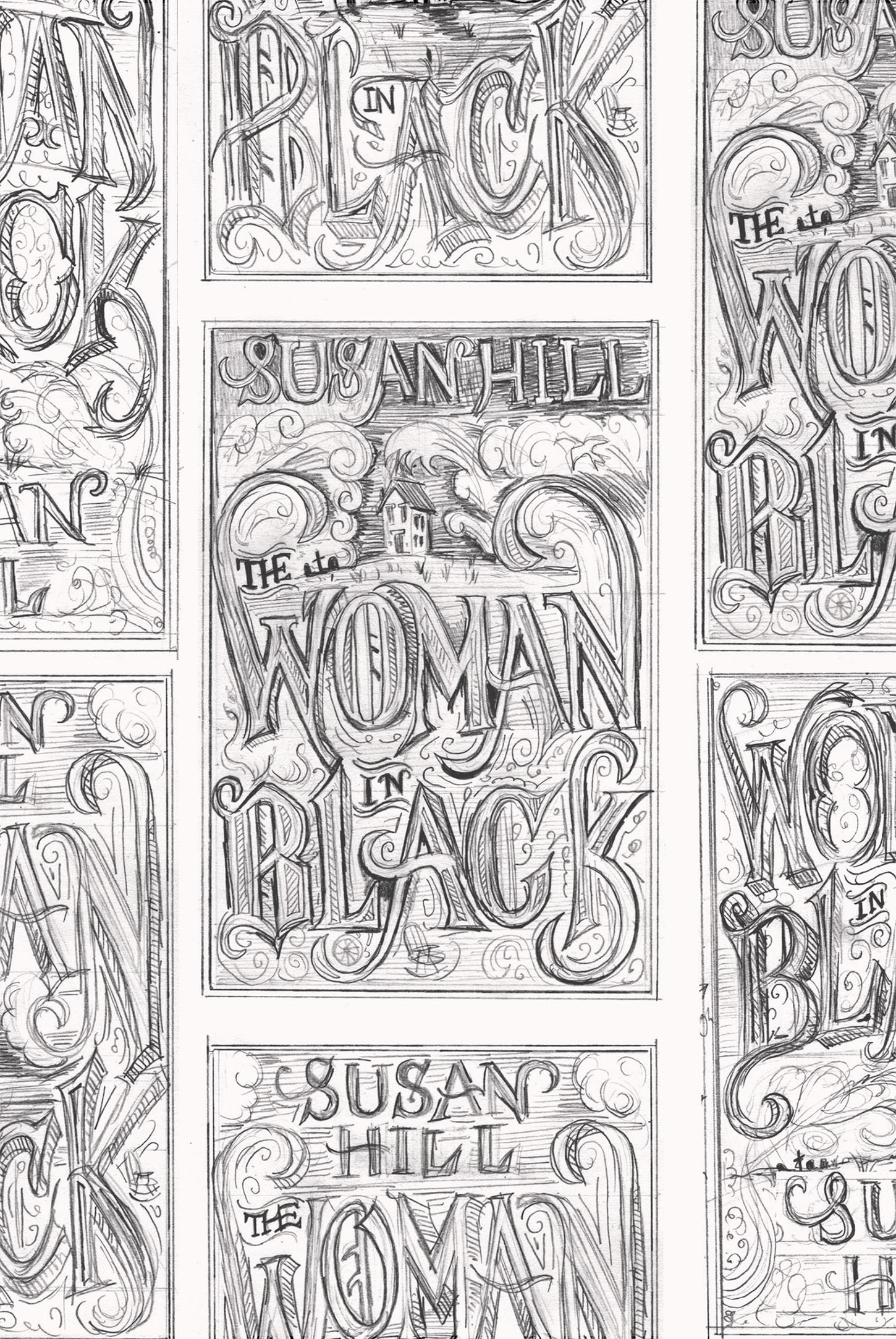
The Woman in Black
A hauntingly beautiful cover that captures the spirit of Susan Hill’s gothic horror classic.
Overview
Commissioned by Penguin Random House, I designed the cover for Susan Hill’s gothic horror novel The Woman in Black. One of my best-known book covers, it captures the eerie atmosphere of the story with a Victorian-era aesthetic that evokes the novel's haunting themes.
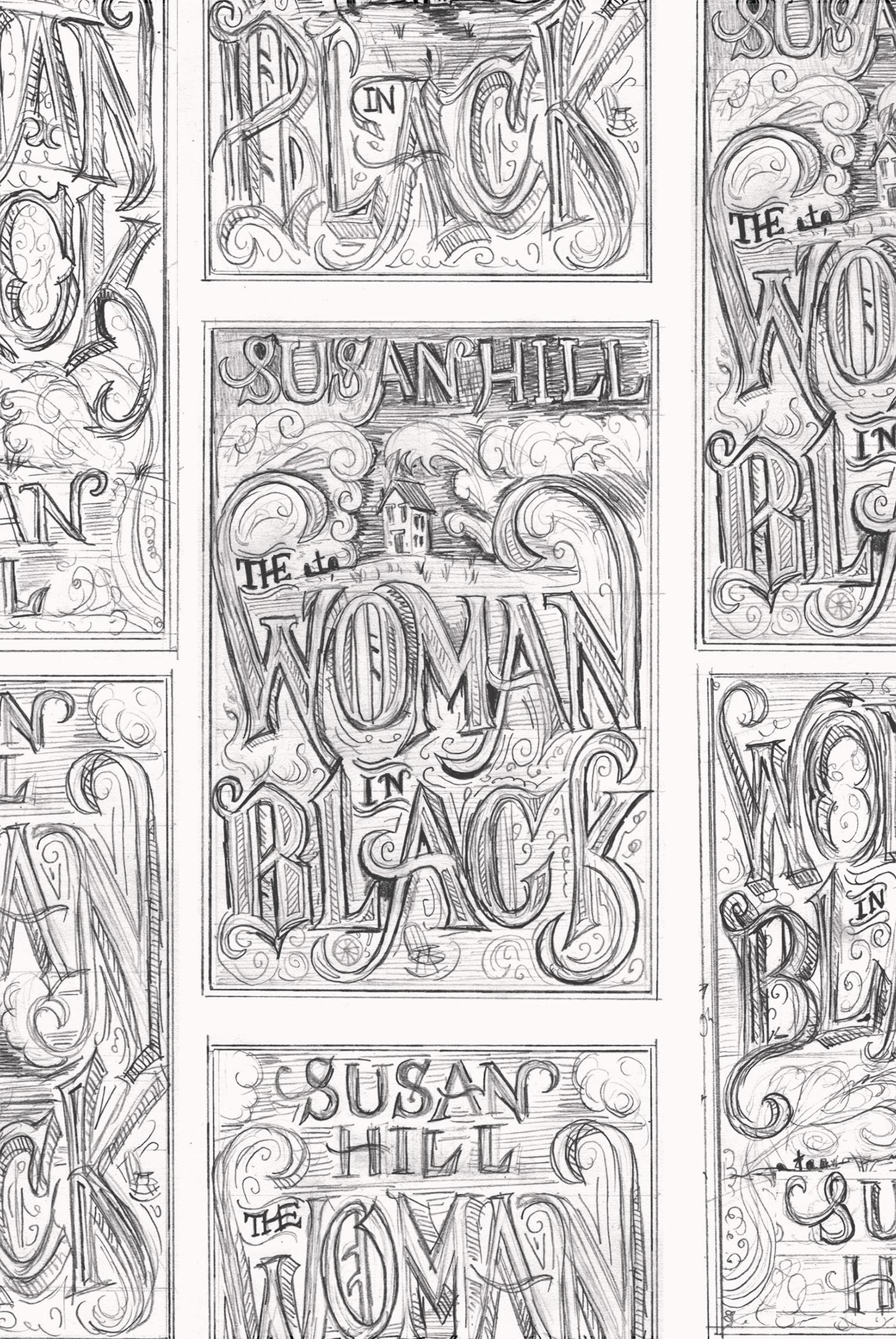
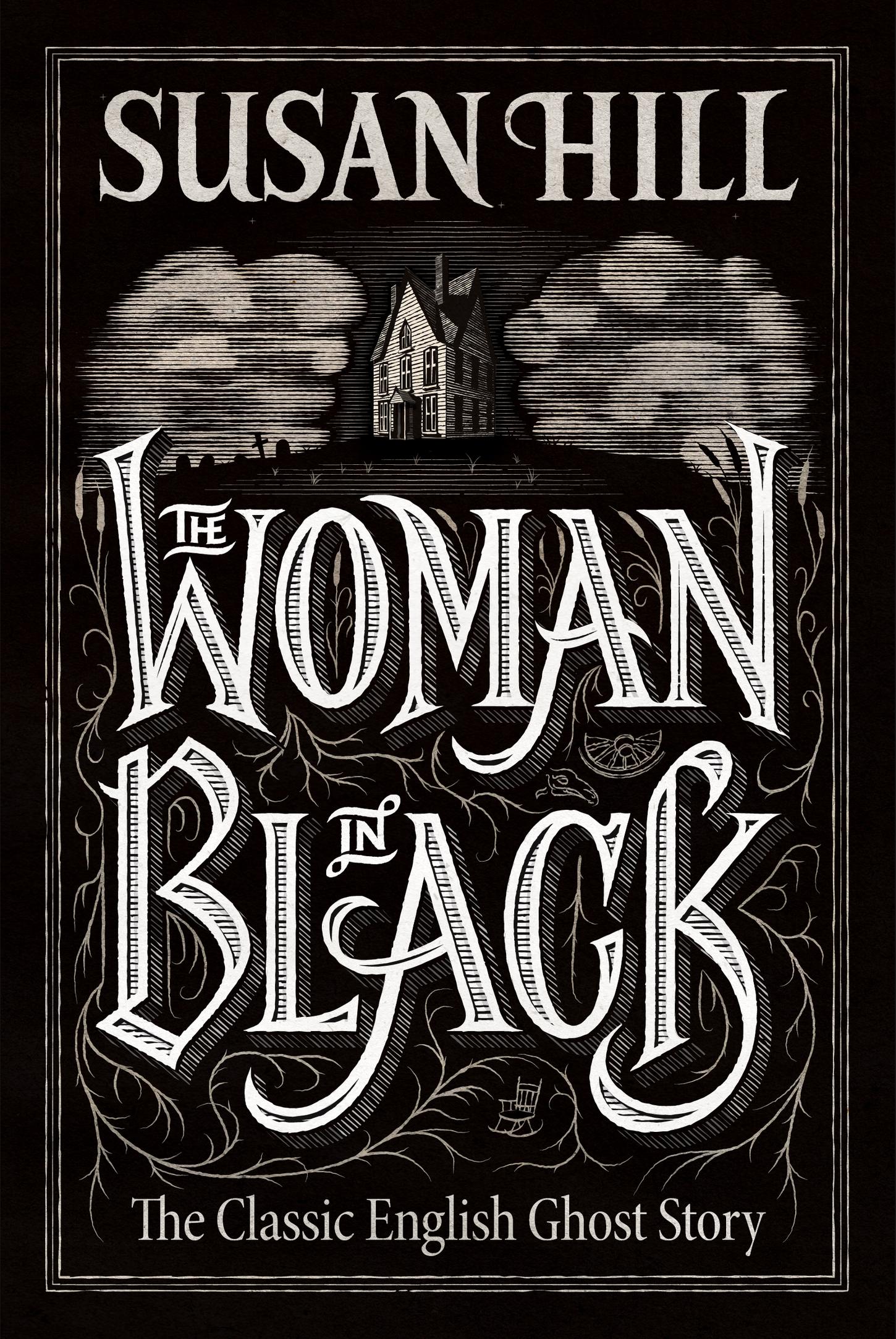
Method
The design centred on Eel Marsh House shrouded in fog, a key scene in the novel. I drew the title lettering to rise between the reeds and roots, interwoven with intricate filigree enclosing subtle details that hint at the book’s spooky scenes.
Outcome
The final design was shortlisted in The Academy of British Cover Design awards and later redrawn in Italian for a European edition.